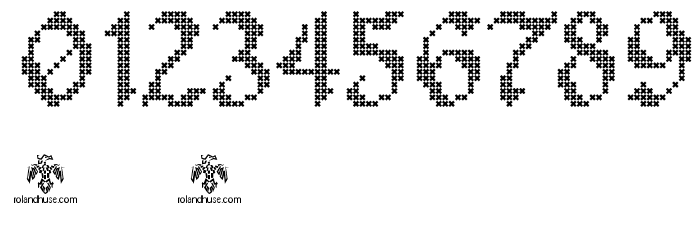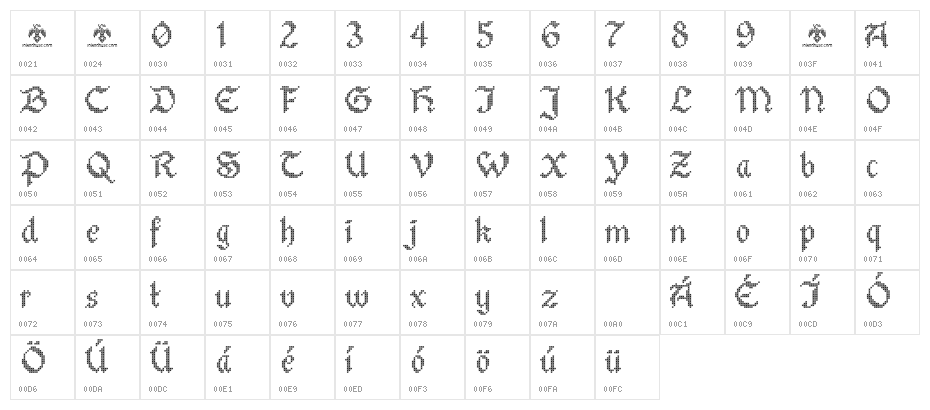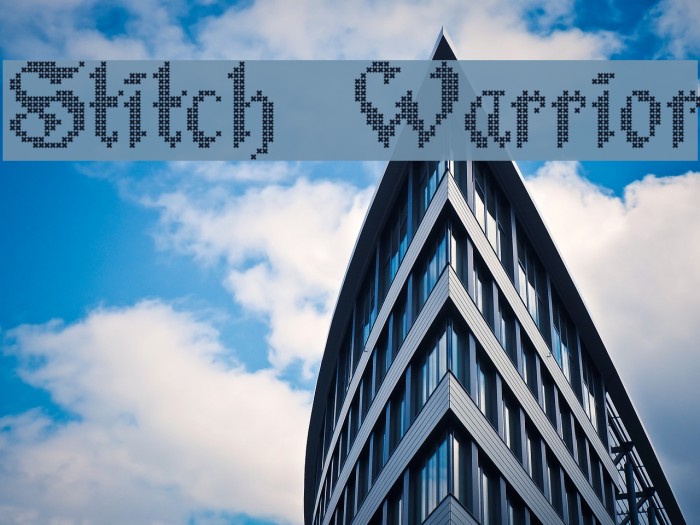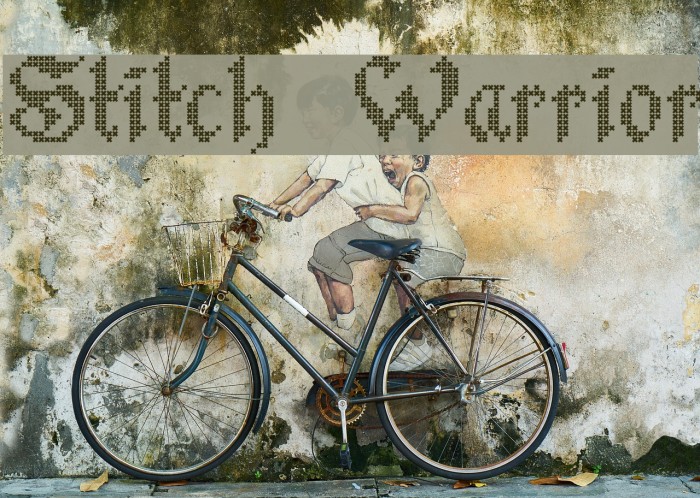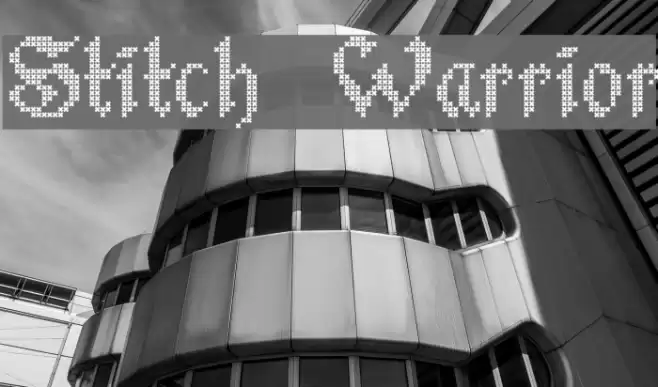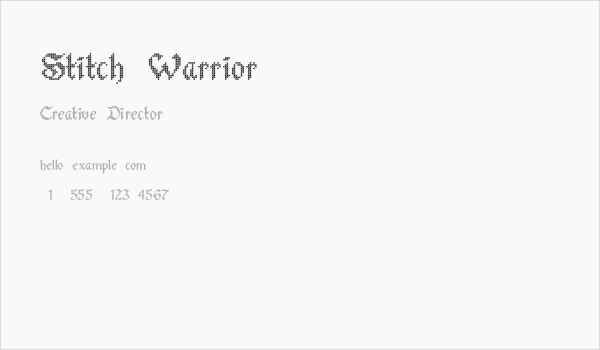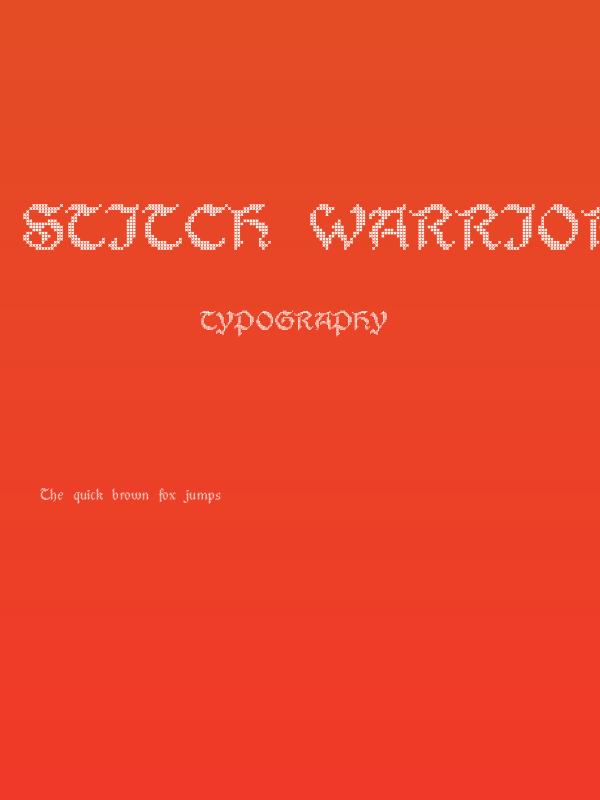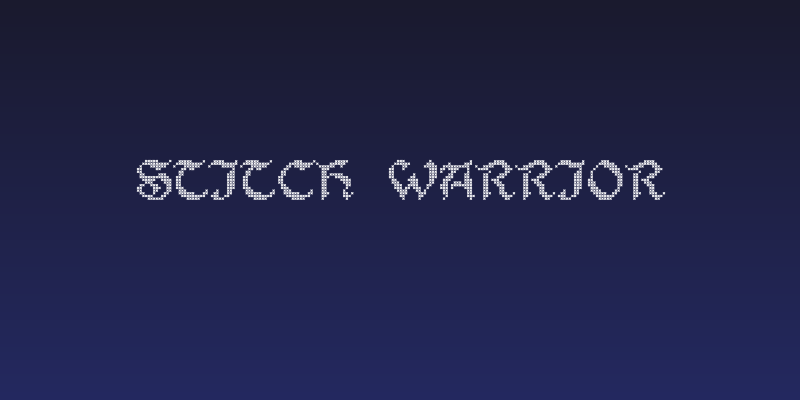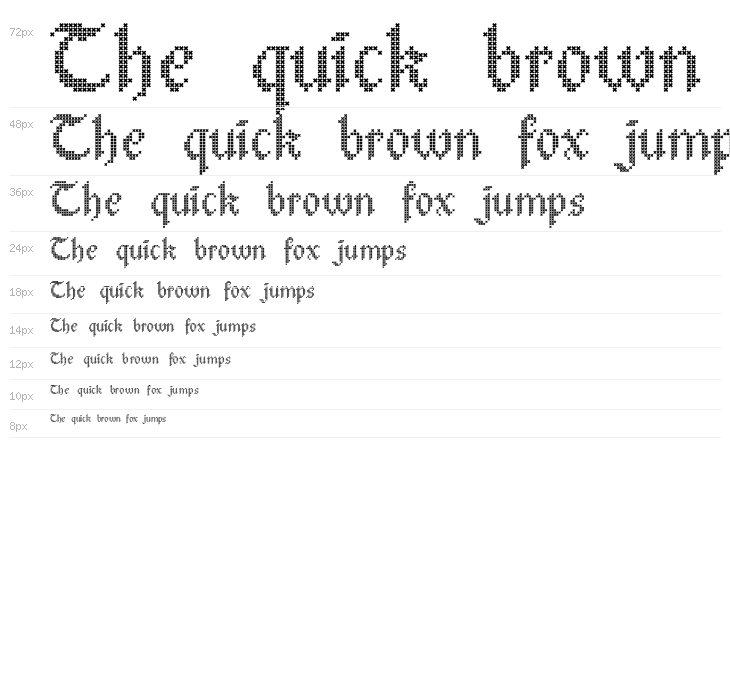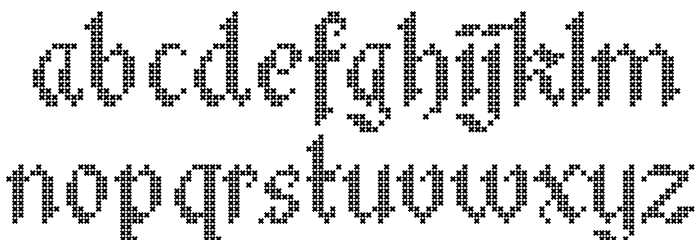
Stitch Warrior Font
Stitch Warrior Description
This font features a unique cross-stitch pattern, reminiscent of traditional embroidery techniques. Each character is composed of small, uniform crosses that create a textured, handcrafted appearance. The uppercase letters are bold and striking, while the lowercase letters maintain the same intricate detailing. Numbers and special characters are also designed with this consistent cross-stitch motif, making the font cohesive and visually engaging. The overall style is decorative, with a vintage flair that evokes a sense of nostalgia and craftsmanship.
| Overall Style | Vintage, Decorative |
| Use Case | Logos, Headlines, Craft projects |
| Proposed Projects | Ideal for craft-themed projects, embroidery designs, DIY blogs, or any creative work that seeks to convey a handmade aesthetic. |